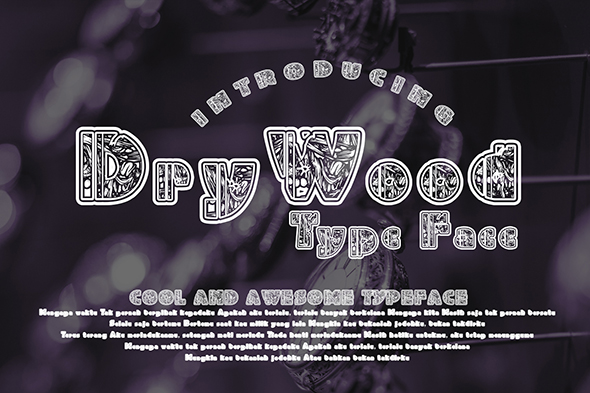
**Introducing DryWood Font: The Quintessential Decorative Font for Your Creative Endeavors**
Unleash the raw power of DryWood Font, an exquisite decorative typeface designed to ignite your imagination. This meticulously crafted font family embodies the essence of nature's untamed beauty, evoking the rugged grandeur of ancient trees.
Indulge in the intricate details and organic textures that make DryWood Font an exceptional choice for a wide range of projects. Whether you're a seasoned designer or an aspiring artist, this font's versatility will empower you to create captivating designs that resonate with your audience.
**Embark on a Typographic Adventure with DryWood Font**
With DryWood Font at your fingertips, you'll discover endless possibilities for creative expression. Its captivating letterforms will effortlessly add a touch of elegance and sophistication to your designs, leaving a lasting impression on all who behold them.
From eye-catching headlines to captivating logos, DryWood Font is the perfect companion for projects that demand visual impact. Its organic flow and natural aesthetic will seamlessly integrate into your designs, enhancing their overall appeal.
**Unleash Your Imagination with DryWood Font**
DryWood Font is more than just another typeface; it's a gateway to a world of boundless creativity. Let its unique character inspire you to craft designs that evoke emotions and tell unforgettable stories.
Whether you're a graphic designer, web developer, or passionate crafter, DryWood Font will empower you to transform your ideas into stunning visual masterpieces. Its versatility and timeless appeal will ensure that your designs stand out from the crowd.
**Embrace the Beauty of DryWood Font**
Join the growing community of creatives who have fallen in love with the captivating charm of DryWood Font. Experience the true power of decorative typography and elevate your designs to new heights.